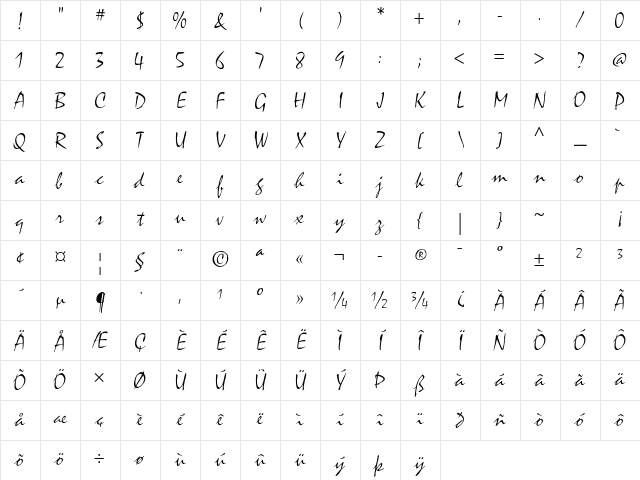
Mistral ITC Std Light Regular
Designer: Phill Grimshaw
Design Context for Mistral ITC Std Light
Mistral ITC Std Light is a composed and adaptable typeface that performs quietly and consistently across a wide range of design contexts. Its slender proportions lend an understated elegance to any composition.